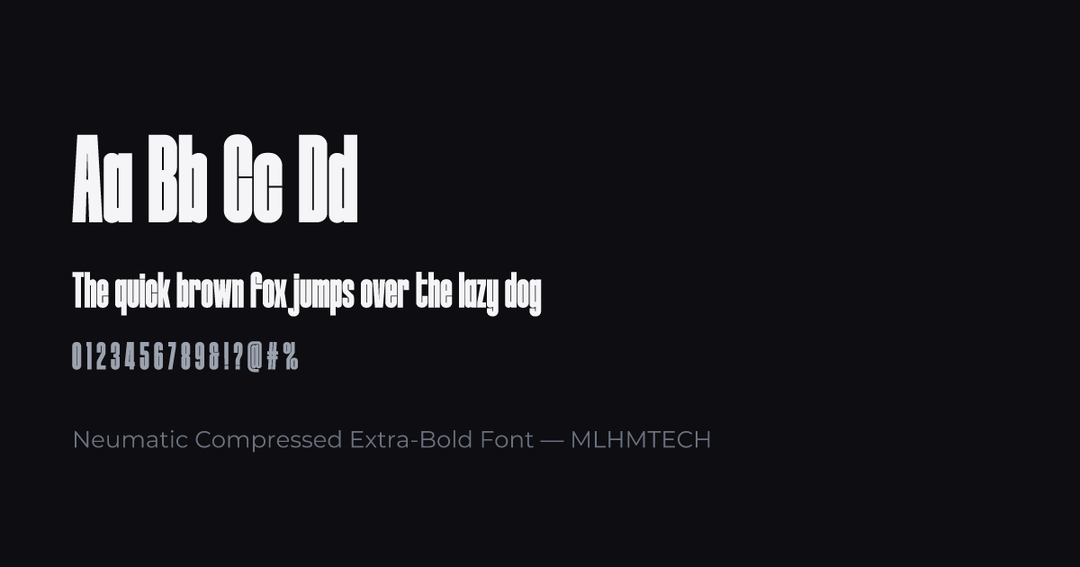
Neumatic Compressed Extra-Bold Font
A condensed, extra-bold sans-serif font that commands attention. Ideal for headlines, posters, and branding projects.
Neumatic Compressed Extra-Bold is a high-impact display font with a condensed, extra-bold design. Its tight letterforms and strong presence make it perfect for grabbing attention in headlines, posters, and branding materials. The font's compressed nature allows for efficient use of space while maintaining readability at large sizes.